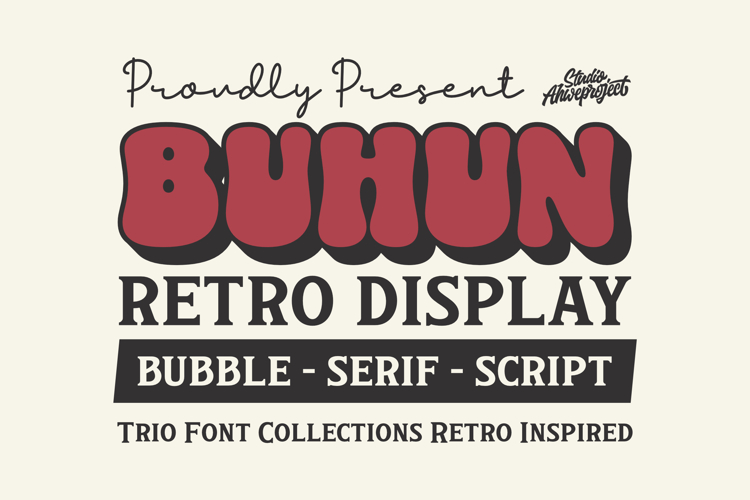
Buhun Retro
Buhun Retro Display is a unique trio font inspired by classic retro style with a playful and bold personality. This font pack includes 3 complementary styles: Bubble, Serif, and Script, giving you full flexibility for any creative project.
With thick shapes, groovy characters, and a strong vintage vibe, Buhun Retro Display is perfect for:
- Retro Posters & Branding
- Merchandise Design
- Nostalgic Logo & Packaging
- Social Media Content
- Magazine Headlines & Labels
- 70s–80s Themed Projects
This font brings a cheerful, fun, and expressive look that makes every design stand out and feel alive. Ideal for designers who want to combine a nostalgic feel with a modern and professional touch.